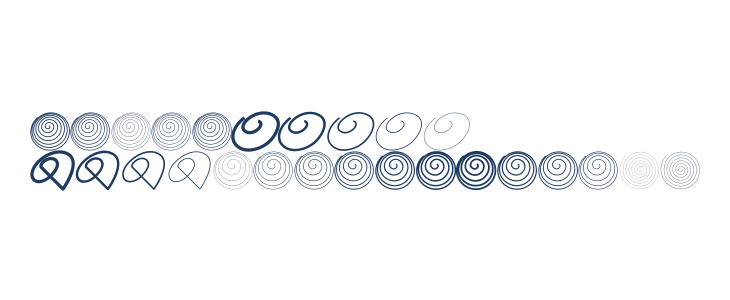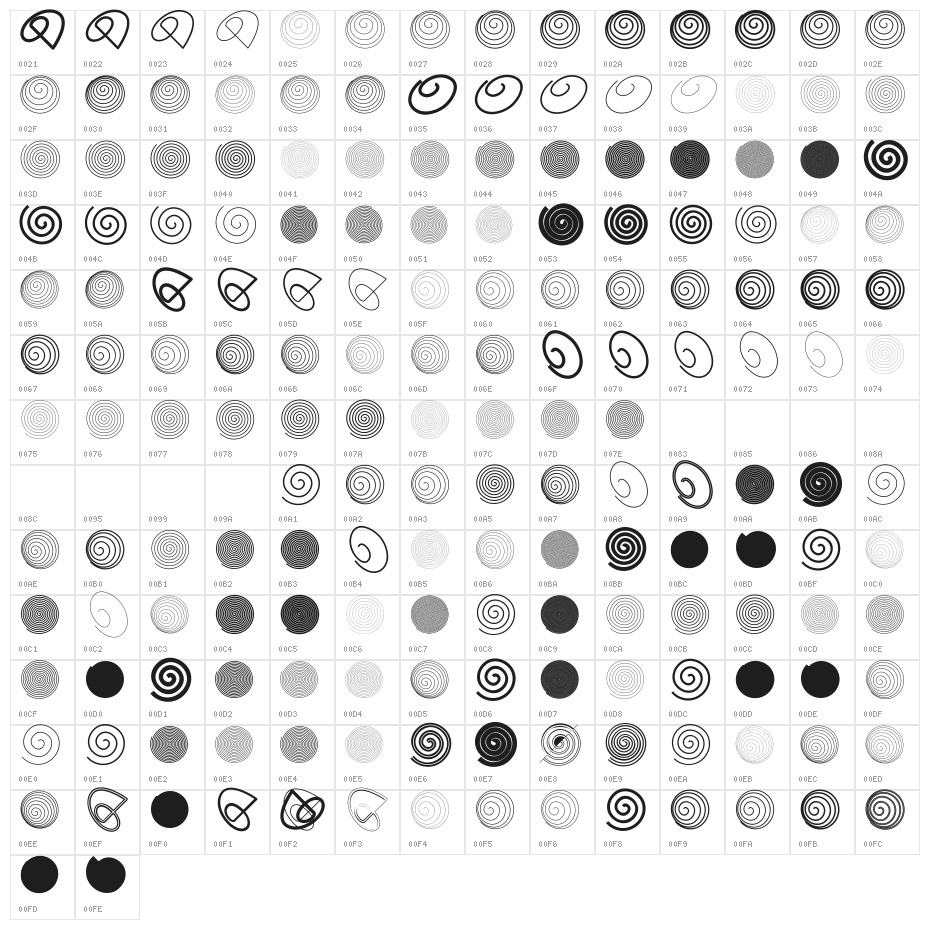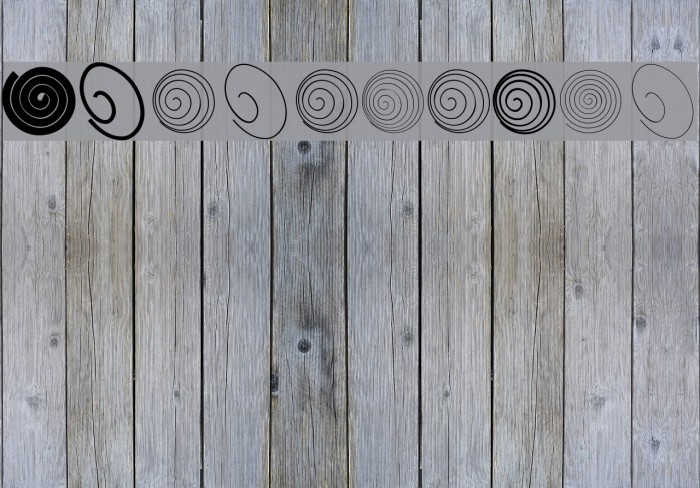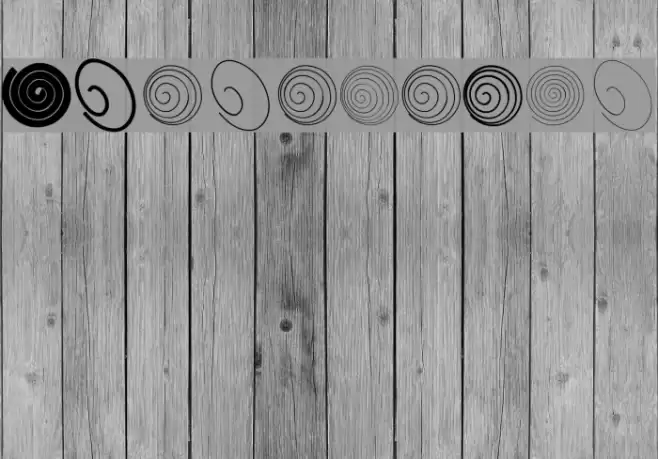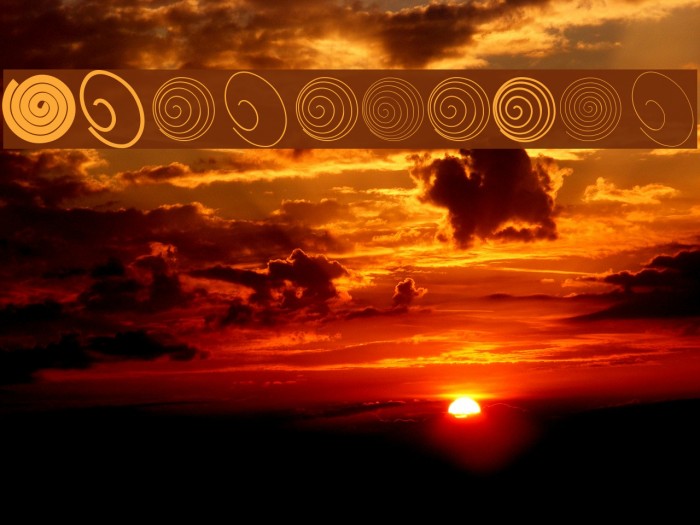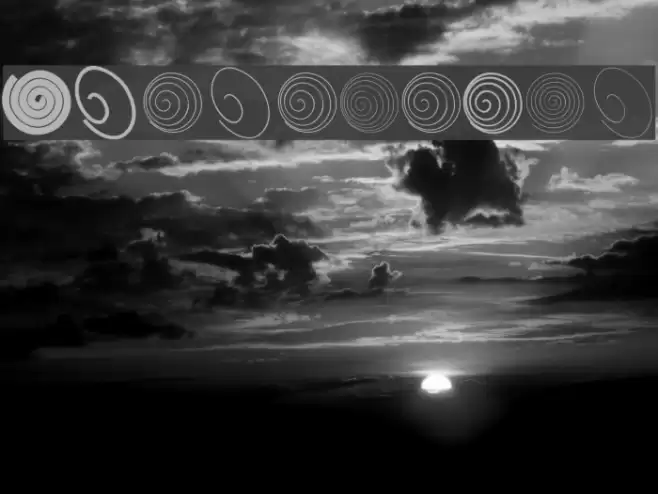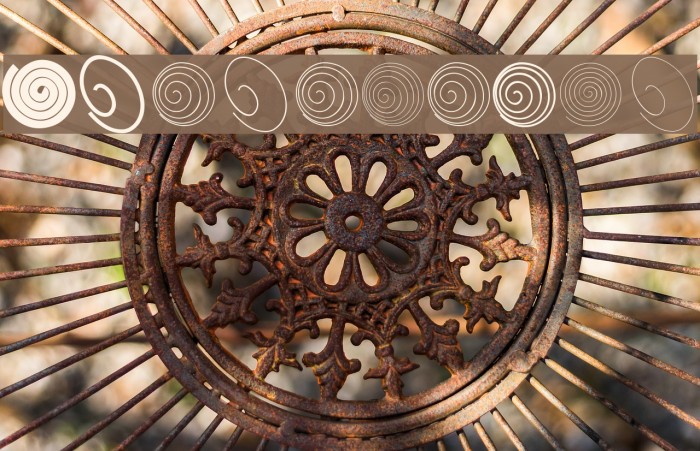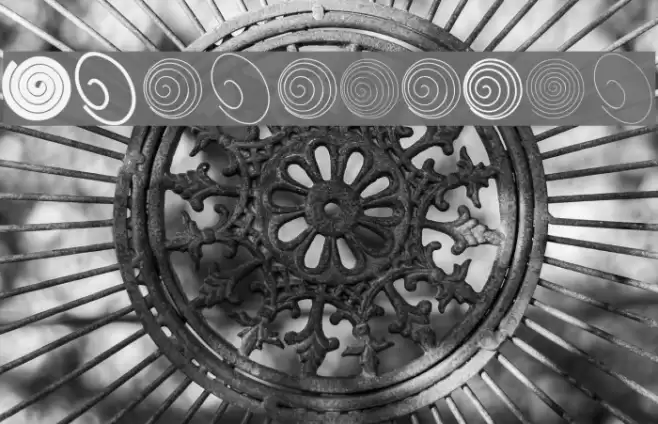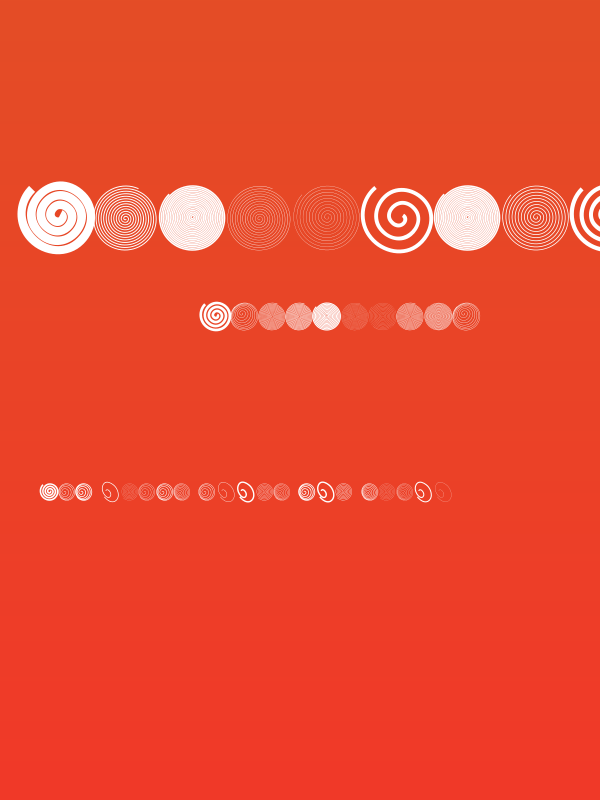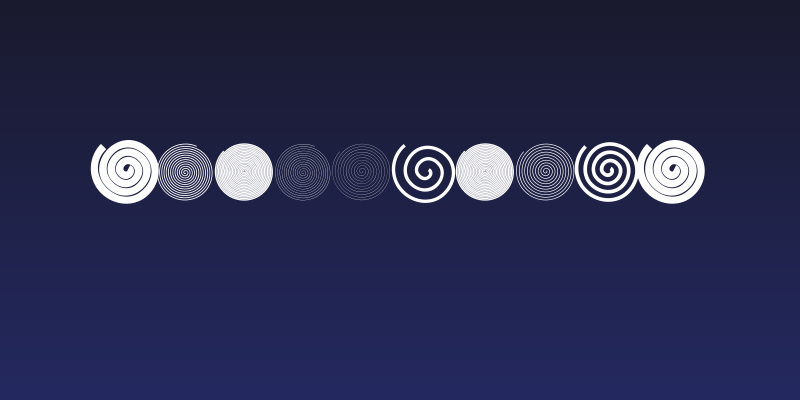
Spiralicus Font
Spiralicus Description
A decorative display font composed entirely of spiral shapes for each character, with variations in stroke thickness and density, creating a visually dynamic and abstract appearance. The glyphs are circular and maintain a consistent spiral motif throughout, with some characters featuring bolder or more open spirals.
| Overall Style | Decorative, Abstract, Modern |
| Use Case | Logos, Headlines, Artistic projects, Decorative elements |
| Proposed Projects | Posters, album covers, event invitations, branding for creative industries, art projects. |